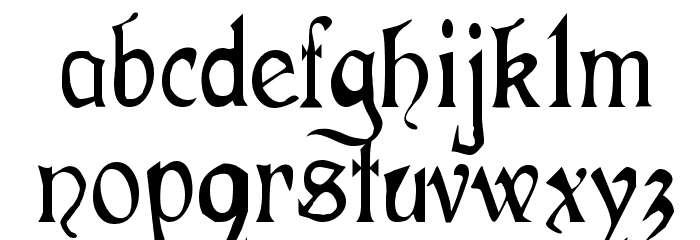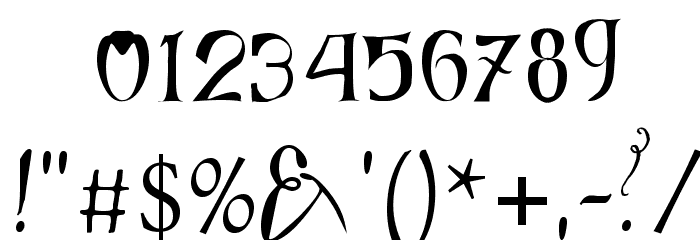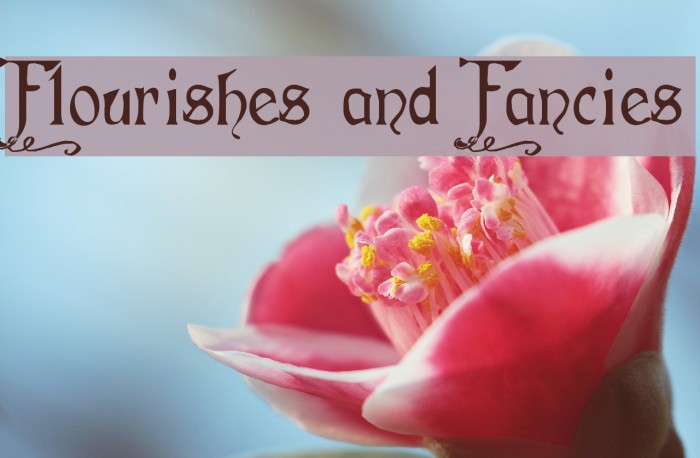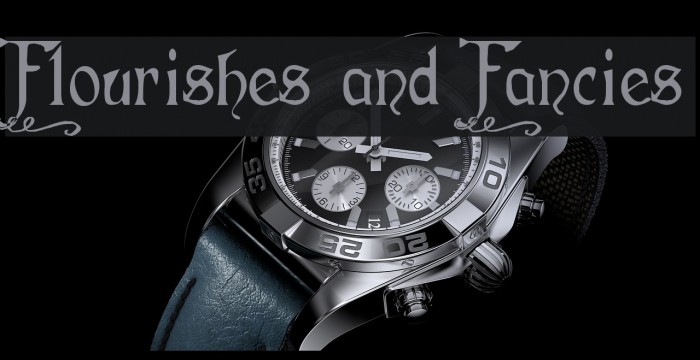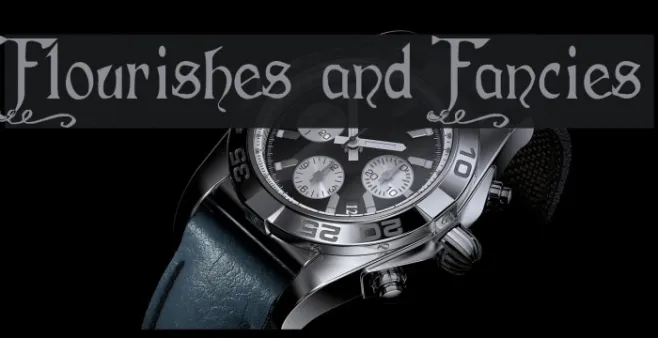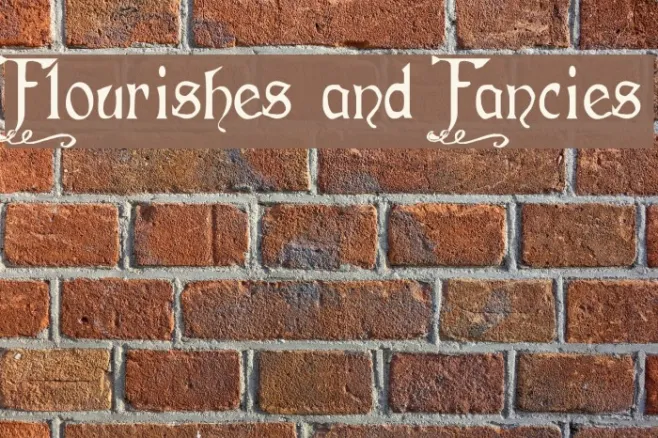
Flourishes and Fancies Font
This font features an elaborate and decorative style, characterized by intricate flourishes and embellishments that extend from the main strokes of the letters. The uppercase letters are particularly ornate, with swirling extensions that give a sense of elegance and grandeur. The lowercase letters maintain a more restrained yet still decorative appearance, offering a balance between readability and style. The numerals and special characters are designed to complement the overall aesthetic, with similar embellishments that enhance their visual appeal. This font is ideal for projects that require a touch of sophistication and artistic flair.
An ornate and decorative font with intricate flourishes and embellishments.
- Proposed Projects: Ideal for wedding invitations, luxury branding, decorative posters, and artistic projects.
- Use Case: Logos, Invitations, Decorative headings